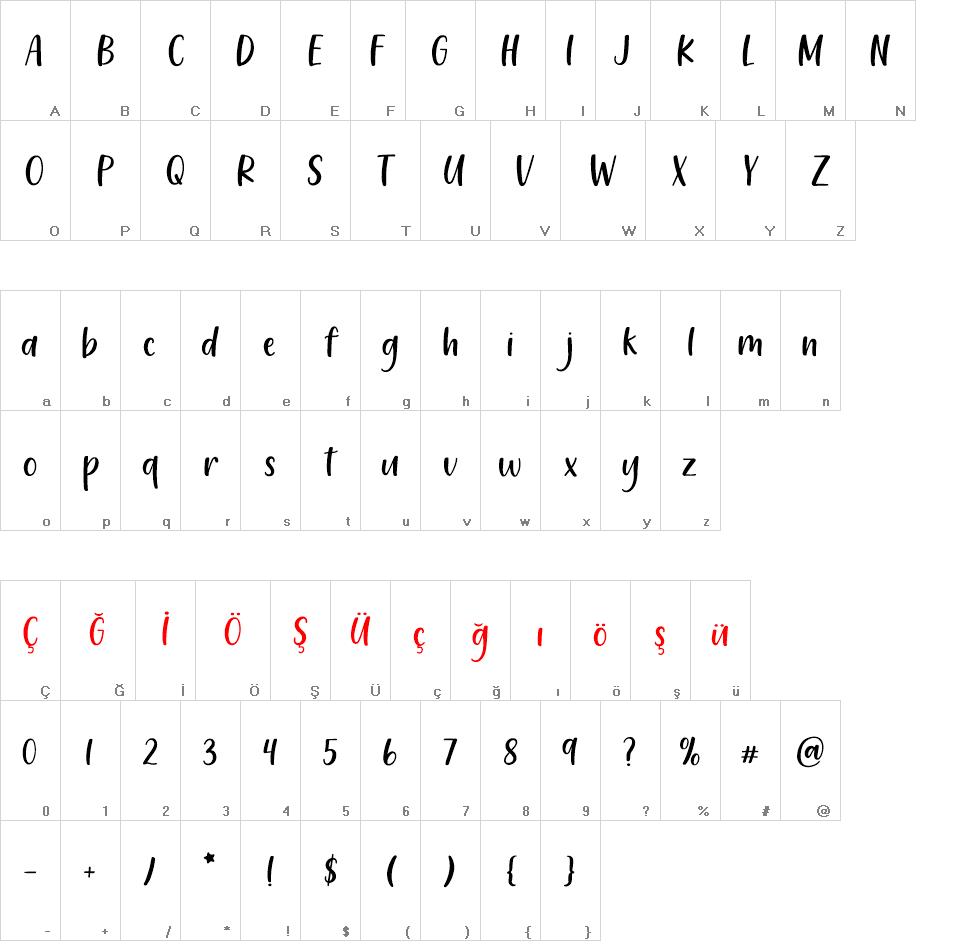
212 Leahlee Sans Font font
Leahlee Sans is a handwritten sans serif that is free for personal use. Get the matching and beautiful script here: https://www.twenty3stars.com/collections/fonts-by-212-fonts